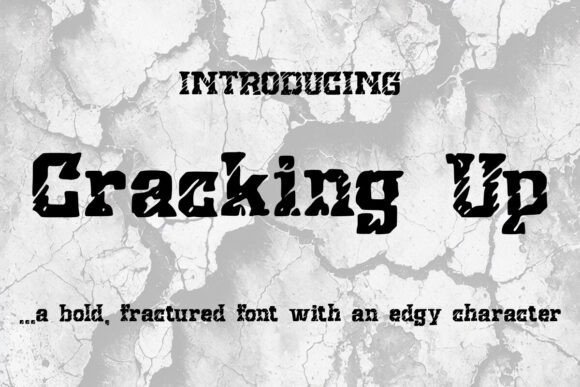
When Fonts Speak Louder Than Words
We’ve all been there – staring at a blank page, desperate for the perfect font to bring our creative vision to life. It’s that moment when the words on the page start to feel like the only thing holding you back. But what if we told you that there’s a font that’s ready to shatter those expectations and take your designs to the next level?
Enter the Cracking Up Font, a bold and fragmented font that’s full of personality and ready to make a statement. This quirky yet striking font is the perfect addition to any designer’s toolkit, offering a unique twist on traditional typography that’s sure to turn heads. With the Cracking Up Font, you’ll be able to add a touch of whimsy and playfulness to your designs, setting you apart from the crowd and making your work truly unforgettable.
Cracking Up Font Key Features
- Unique Characteristics: Cracking Up Font features a distressed, crackled texture that adds a unique, vintage aesthetic to any design. The font is ideal for creating eye-catching headlines, titles, and other attention-grabbing text elements.
Cracking Up Font Review
Overall, I think “Cracking Up Font” is a quirky and attention-grabbing font that can add a unique touch to certain designs. ✨ One of its strengths is its versatility – it can be used for both casual and humorous content, making it a great choice for social media, advertising, or even entertainment-related projects. ✨ The font’s distressed, hand-drawn feel also gives it a sense of authenticity and human touch, which can be appealing to audiences.
However, there are a few limitations to consider. ⚠️ One major issue is that the font may be difficult to read in certain contexts, particularly at smaller sizes or in situations where clarity is crucial. ⚠️ Additionally, the font’s inconsistent letter spacing and uneven letterforms can sometimes make it look unpolished or amateurish.
Key Points:
- Unique, distressed design adds a human touch to designs
- Great for casual, humorous, or entertainment-related content
- May be difficult to read in certain contexts or at smaller sizes
- Letter spacing and letterforms can be inconsistent
Overall, I think “Cracking Up Font” is a fun and creative choice for designers looking to add some personality to their work. Just be sure to use it thoughtfully and consider the potential limitations.
The Cracking Up Font is versatile and can be used in a variety of contexts, including:
- Entertainment and media promotion
- Advertising and marketing